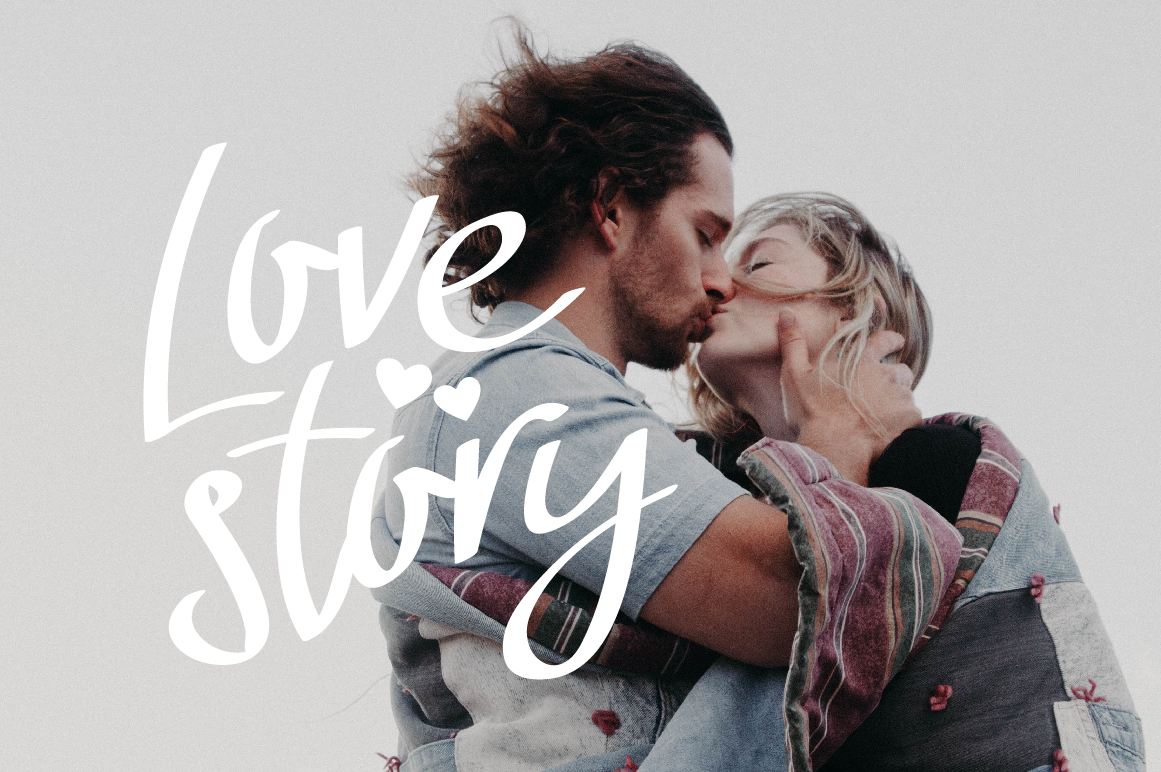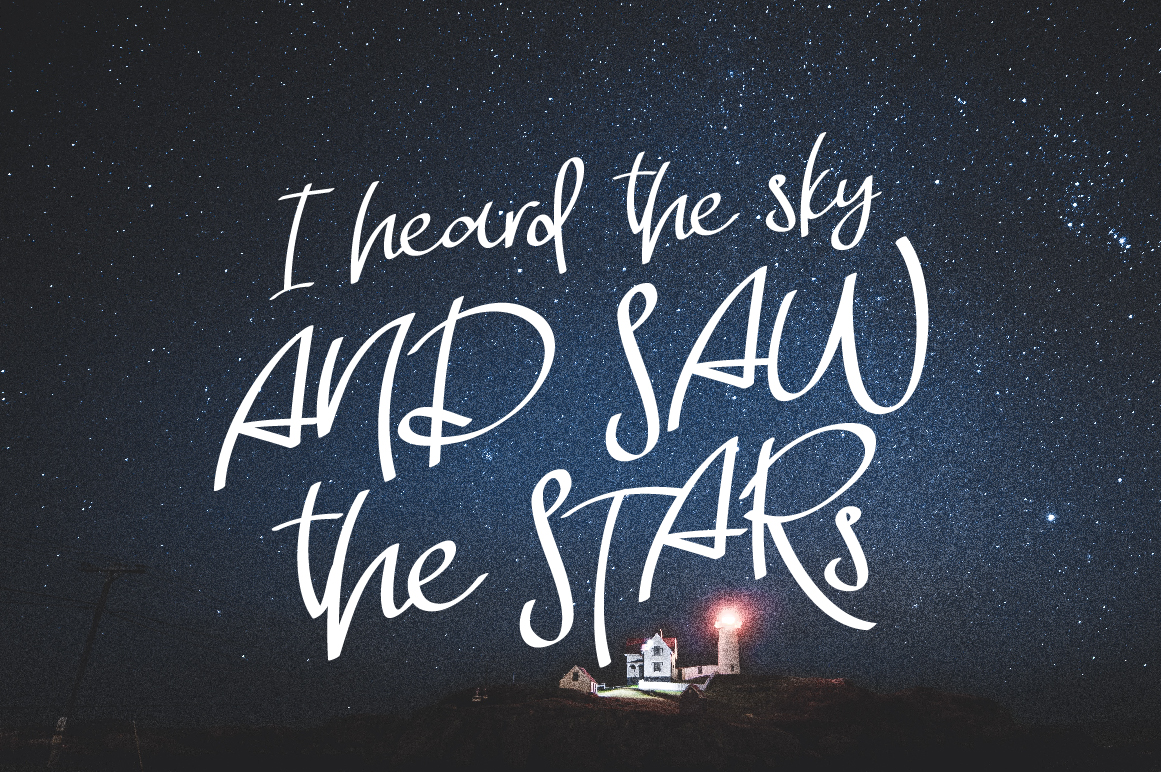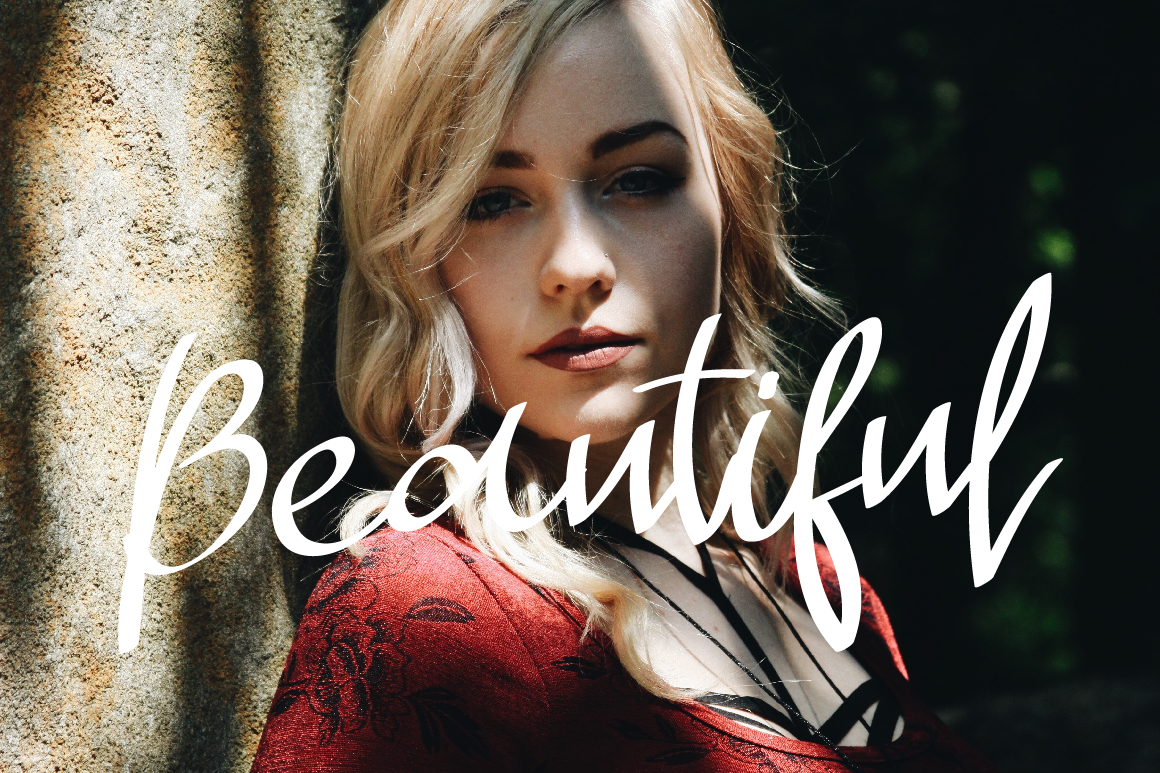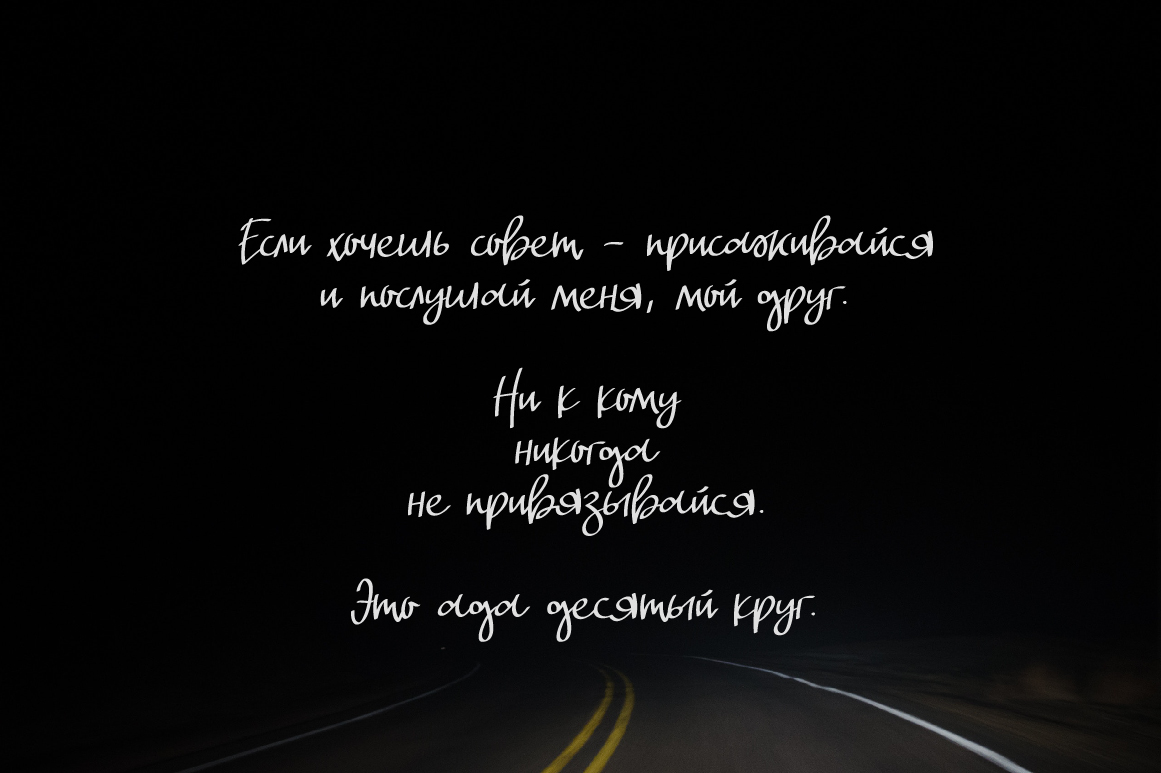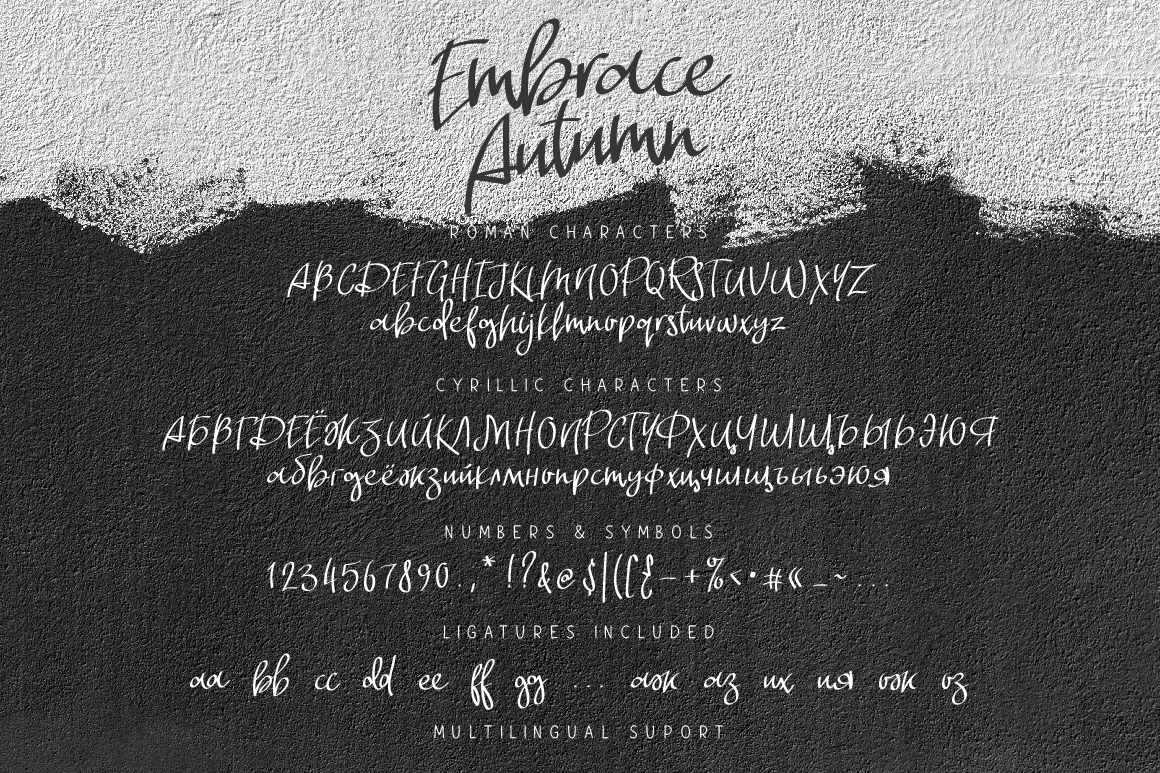
Introducing Embrace Autumn: The Elegant Handwritten Font for Your Designs
As the seasons change and autumn leaves start to fall, we’re reminded of the beauty and coziness that comes with this time of year. For designers and crafters, autumn is also a season of inspiration, with its warm color palette and inviting textures. If you’re looking for a font that captures the essence of autumn, look no further than Embrace Autumn, a stunning handwritten font that exudes elegance and relaxation.
What Makes Embrace Autumn Special?
Embrace Autumn is a beautiful handwritten font that is perfect for a wide range of designs, from fall-themed projects to everyday creative endeavors. This gorgeous font comes with a range of features that make it versatile and easy to use, including:
- Uppercase and lowercase characters, giving you the flexibility to create stunning headlines and body text.
- A large set of punctuation glyphs, ensuring that you have all the symbols you need to create professional-looking text.
- Numerals, making it easy to add numbers and statistics to your designs.
- Ligatures, which help to create a natural, handwritten feel.
- Cyrillic characters, expanding the font’s language support.
- Multilingual support, allowing you to create designs for a global audience.
Embrace Autumn is a font that is designed with designers and crafters in mind. Whether you’re creating:
- Fall-themed party invitations, decorations, and social media graphics.
- Elegant stationery, journals, and planners.
- Cozy packaging, labels, and branding materials.
- Beautiful blogs, websites, and digital products.
This font is sure to add a touch of warmth and sophistication to your projects. Its elegant, handwritten feel makes it perfect for designs that require a personal touch.
Why Choose Embrace Autumn?
With so many fonts to choose from, why should you choose Embrace Autumn? Here are just a few reasons:
- Elegance and Relaxation: Embrace Autumn exudes a sense of calm and sophistication, making it perfect for designs that require a touch of elegance.
- Versatility: With its wide range of characters, glyphs, and language support, Embrace Autumn can be used for a variety of design projects.
- High-Quality: Embrace Autumn is a high-quality font that is designed to produce crisp, clear text at any size.
Tips for Using Embrace Autumn
To get the most out of Embrace Autumn, here are a few tips:
- Pair with Other Fonts: Embrace Autumn looks stunning when paired with other fonts, such as sans-serif fonts for a modern contrast.
- Experiment with Colors: Autumn is all about warm, rich colors, so try experimenting with golden yellows, deep oranges, and rich reds.
- Use for Headings and Body Text: Embrace Autumn is versatile enough to be used for both headings and body text, making it perfect for creating cohesive designs.
Embrace Autumn is a beautiful handwritten font that is perfect for designers and crafters looking to add a touch of elegance and relaxation to their designs. With its wide range of characters, glyphs, and language support, this font is versatile and easy to use. Whether you’re creating fall-themed projects or everyday designs, Embrace Autumn is sure to become a favorite in your font collection.